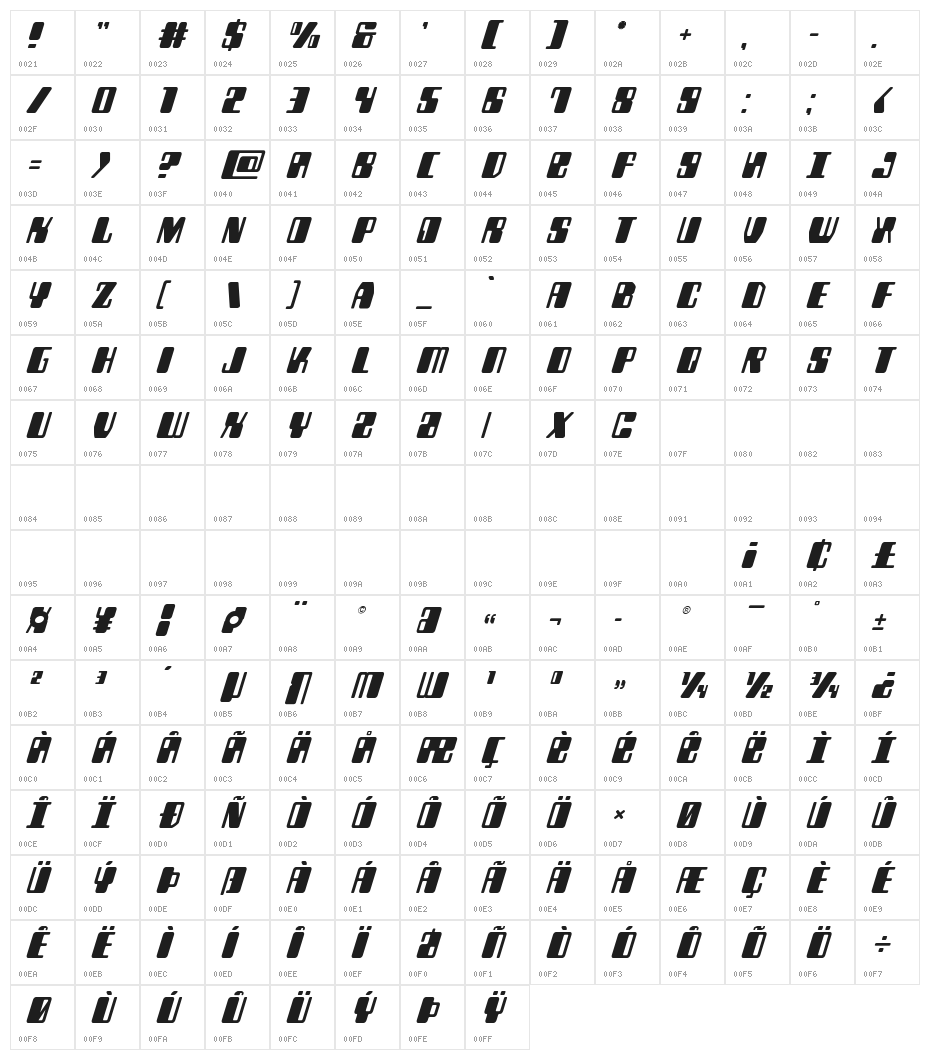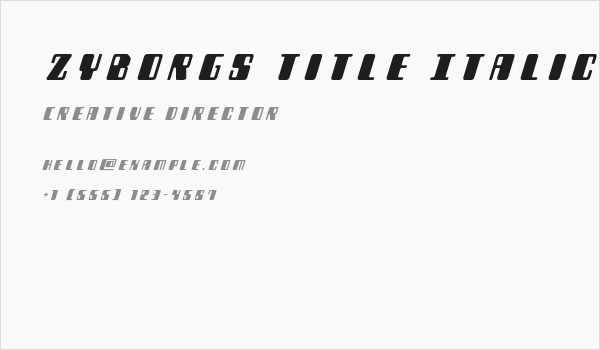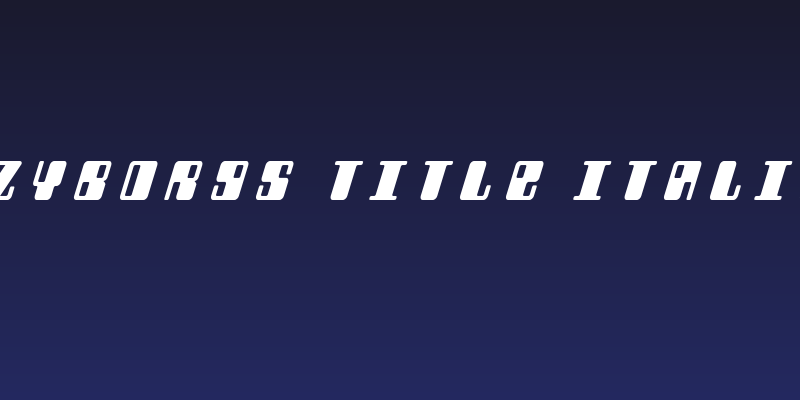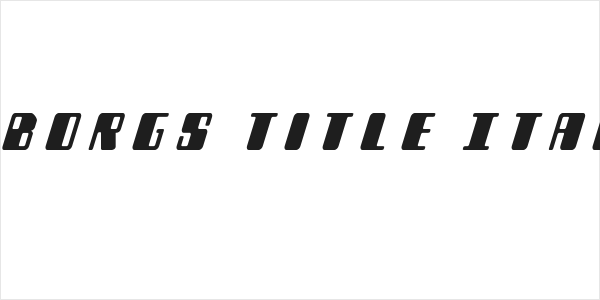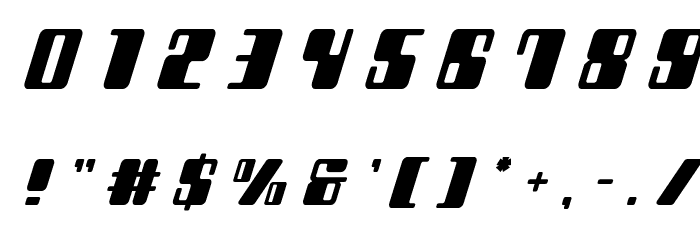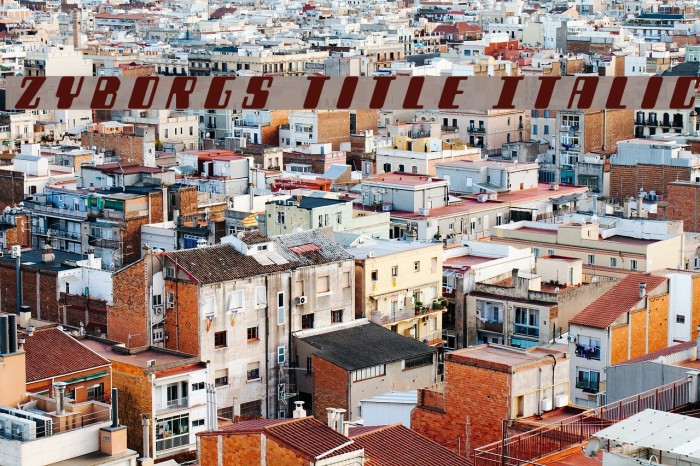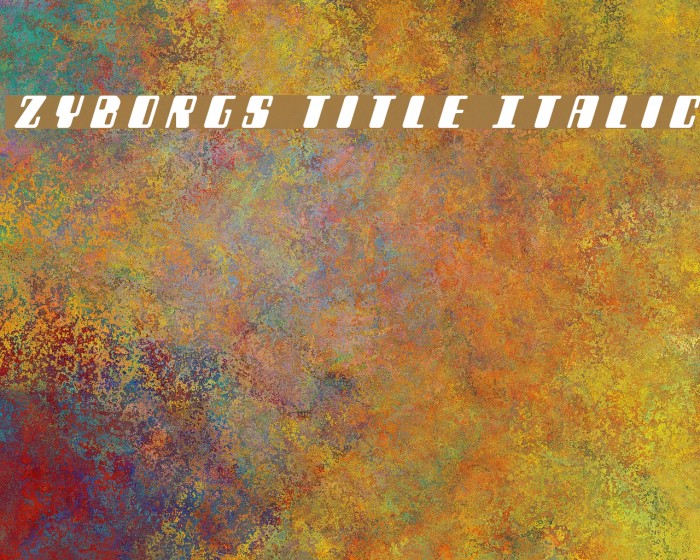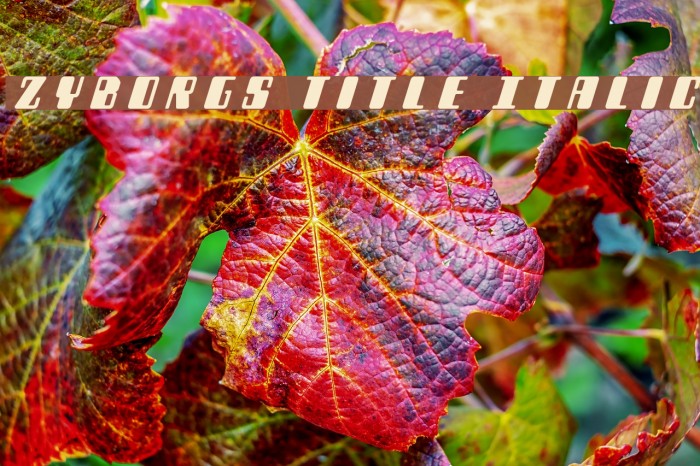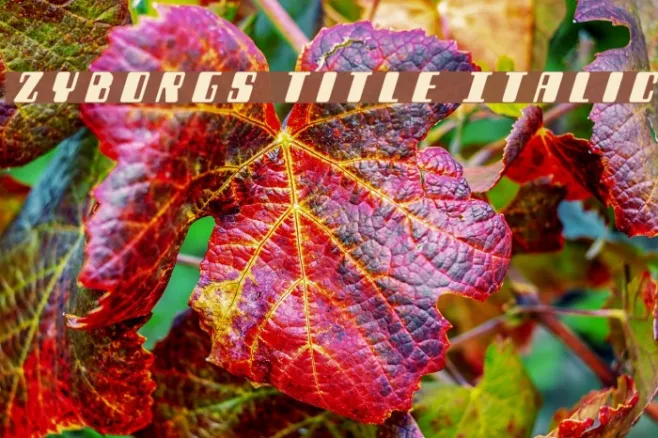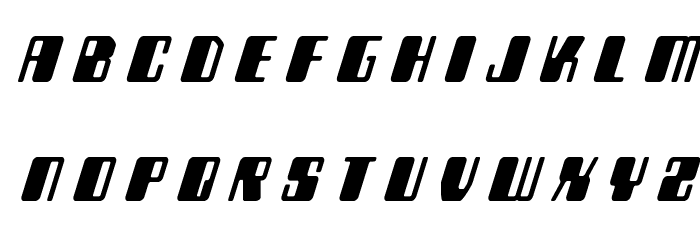
Zyborgs Title Italic Font
Zyborgs Title Italic Description
This font features a bold, italicized style with a futuristic and dynamic appearance. The characters are designed with sharp angles and a slanted orientation, giving them a sense of motion and speed. The uppercase and lowercase letters maintain a consistent style, with the uppercase letters being more prominent and the lowercase letters slightly more compact. The numbers and special characters follow the same design principles, ensuring uniformity across all elements. The font's bold weight and italic slant make it ideal for attention-grabbing headlines and titles.
| Overall Style | Futuristic, Dynamic |
| Use Case | Headlines, Logos, Titles |
| Proposed Projects | Ideal for sci-fi themed projects, video game titles, tech branding, and dynamic posters. |